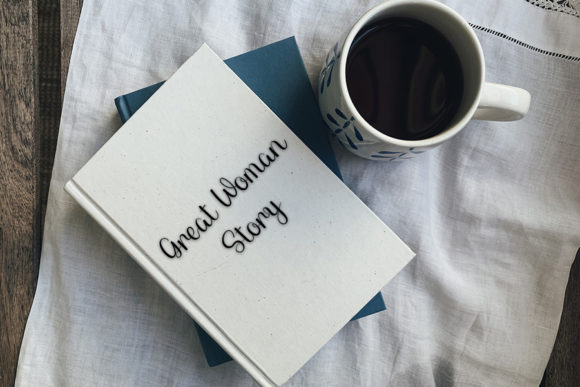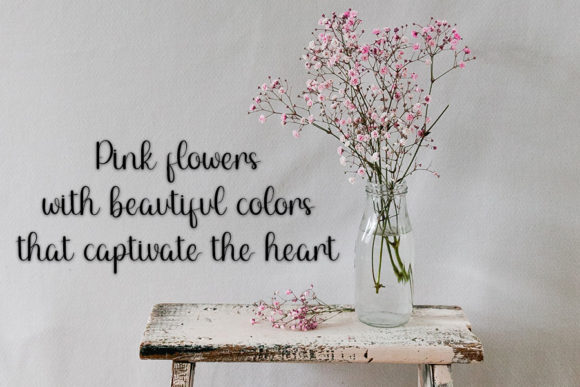
Cathy Catherine Font
db-ku.com - Script & Handwritten -- Cathy Catherine is a stylish script calligraphy font with a smart atmosphere and impeccable form, inspired by a classic calligraphy. Balanced and varied, this font was designed to enhance the beauty of your projects.